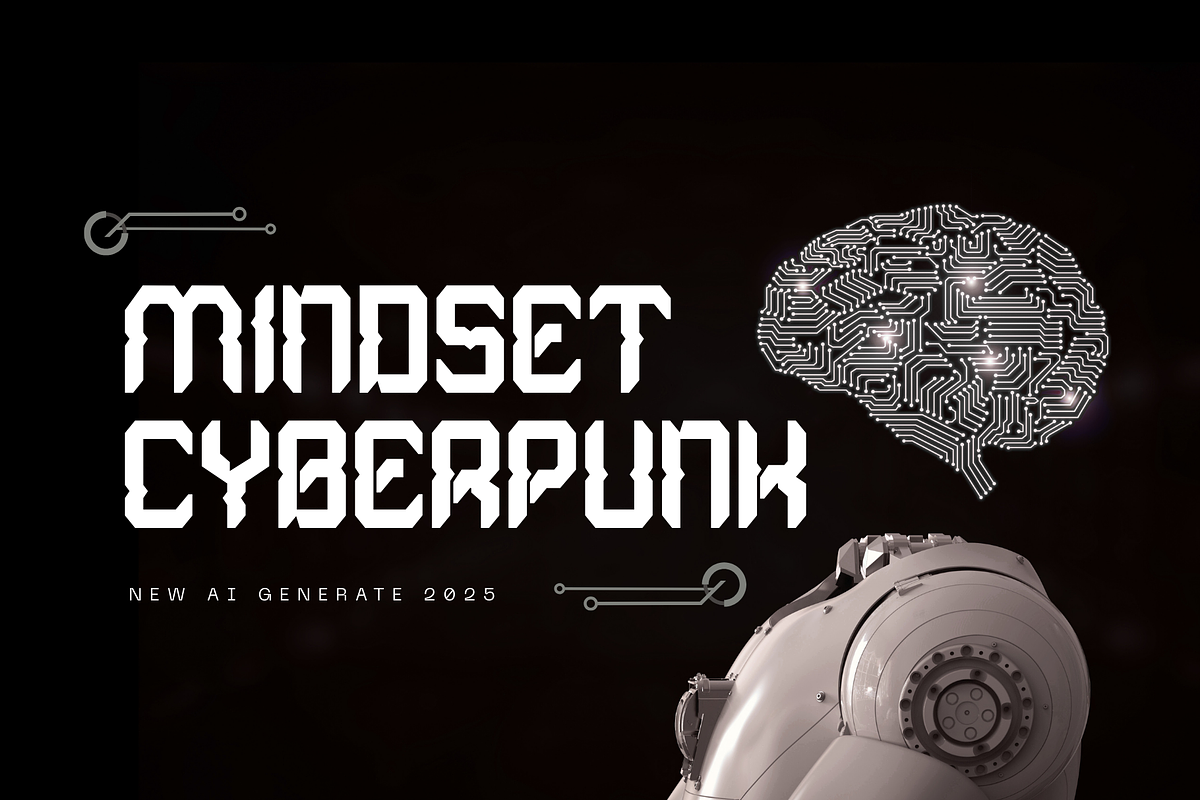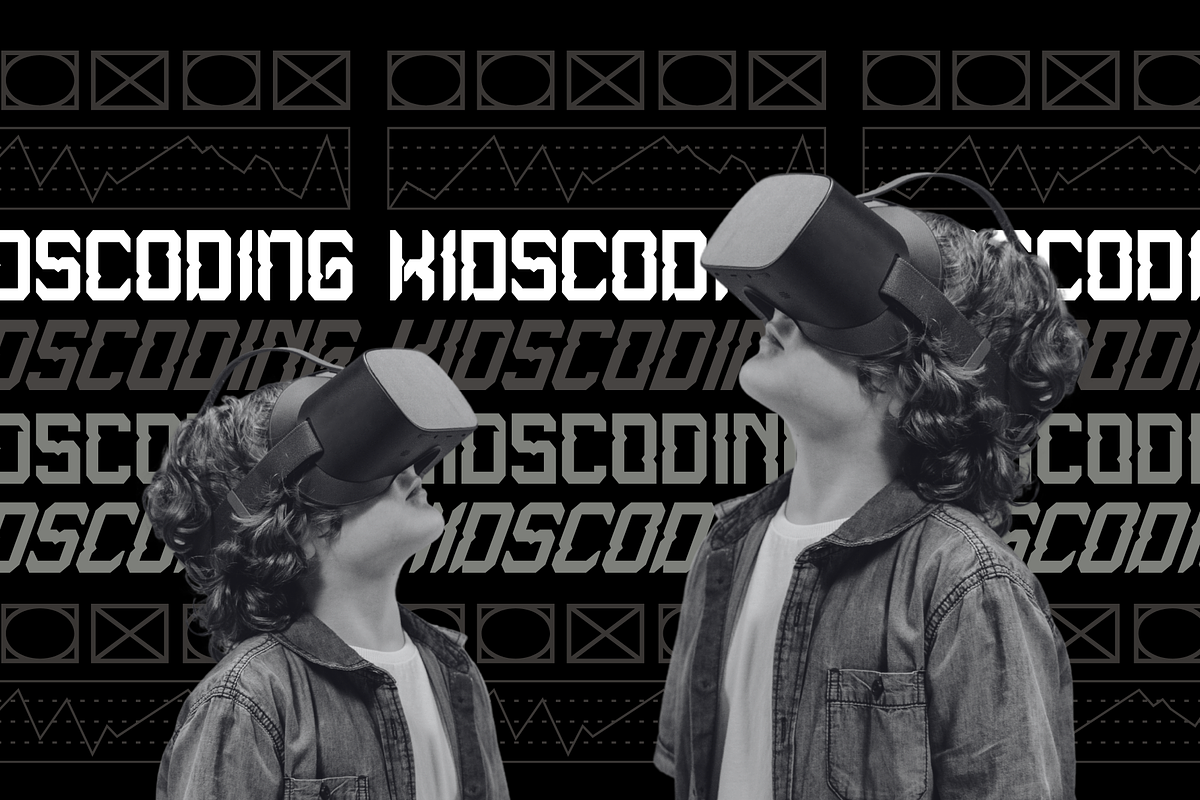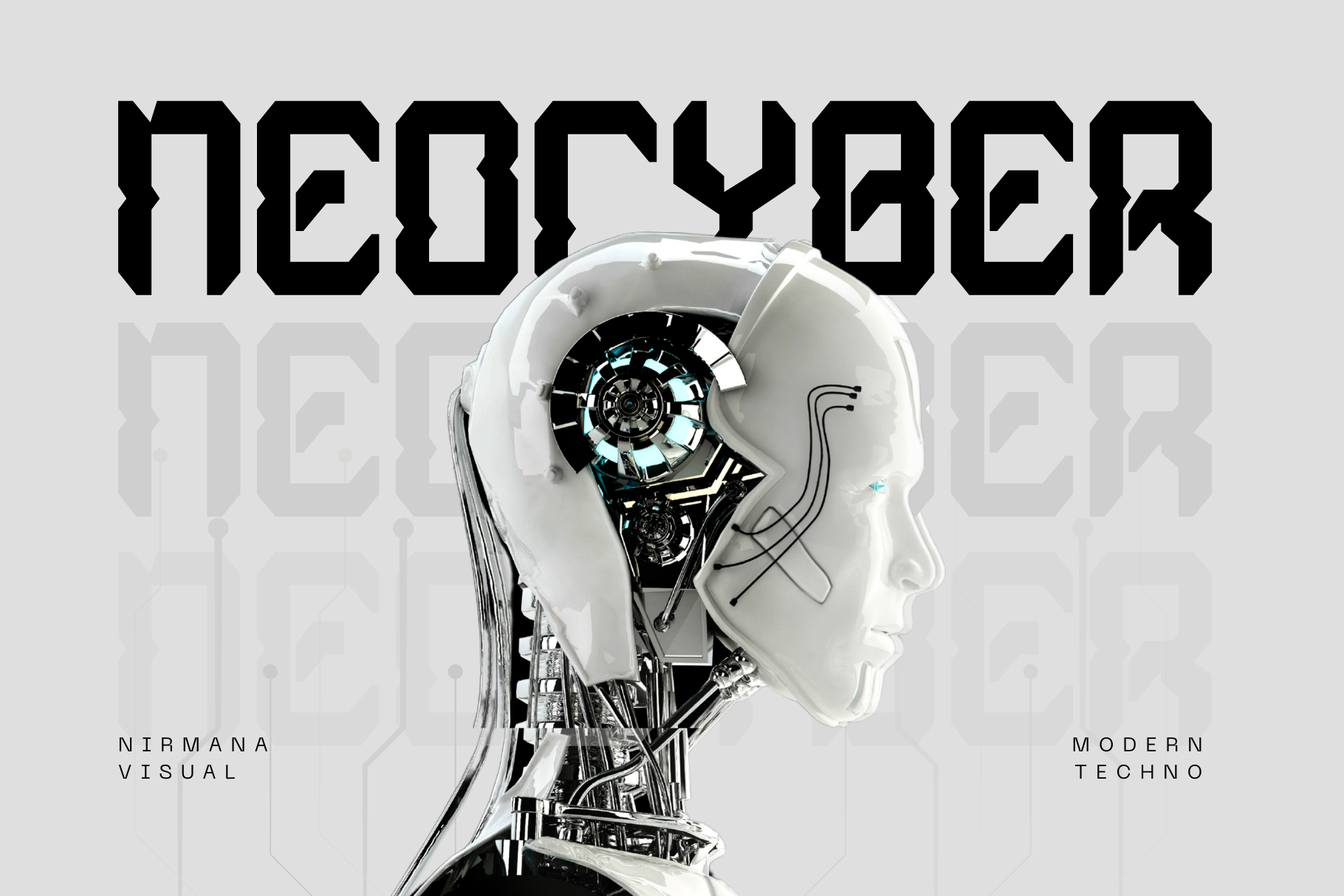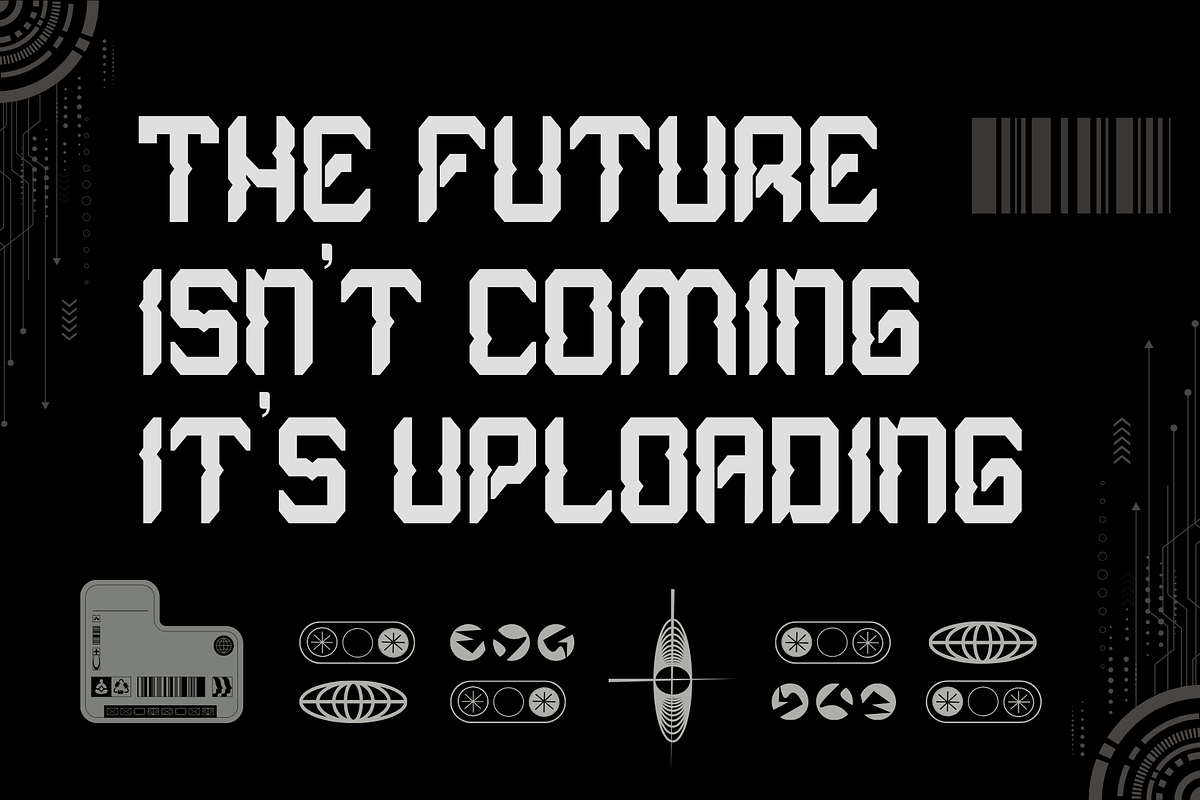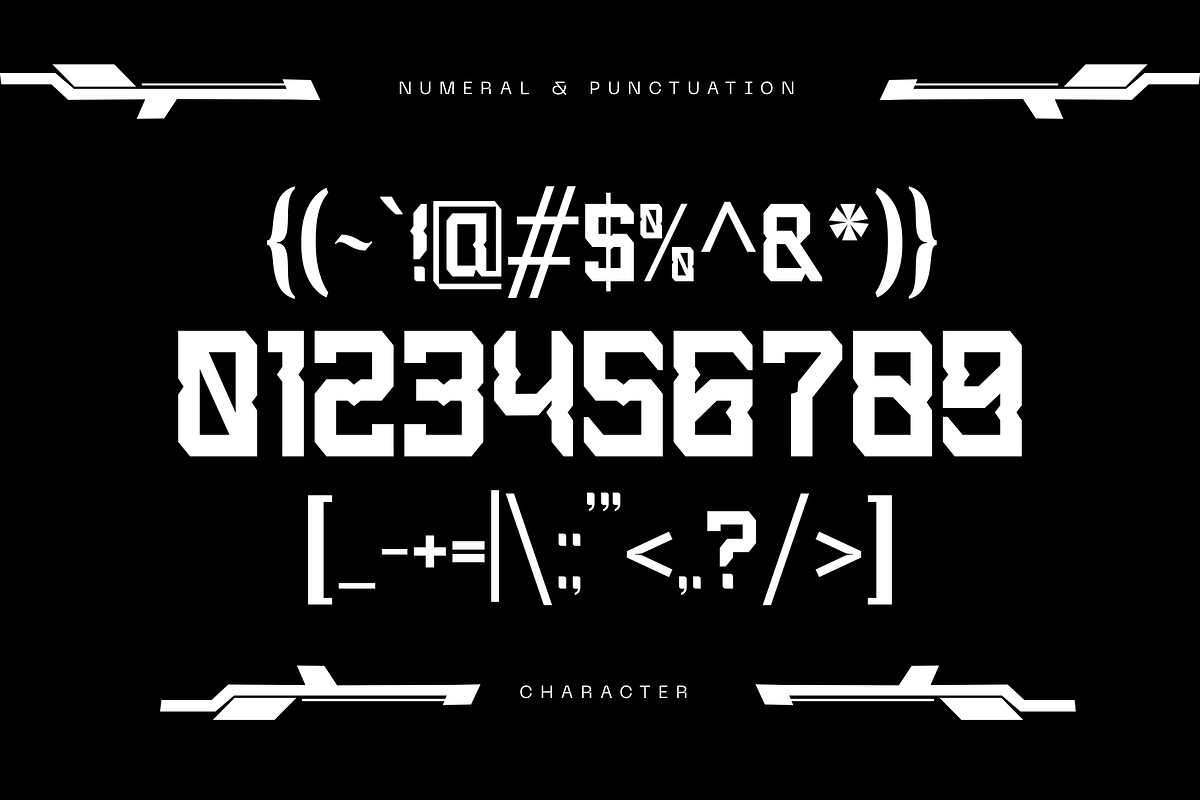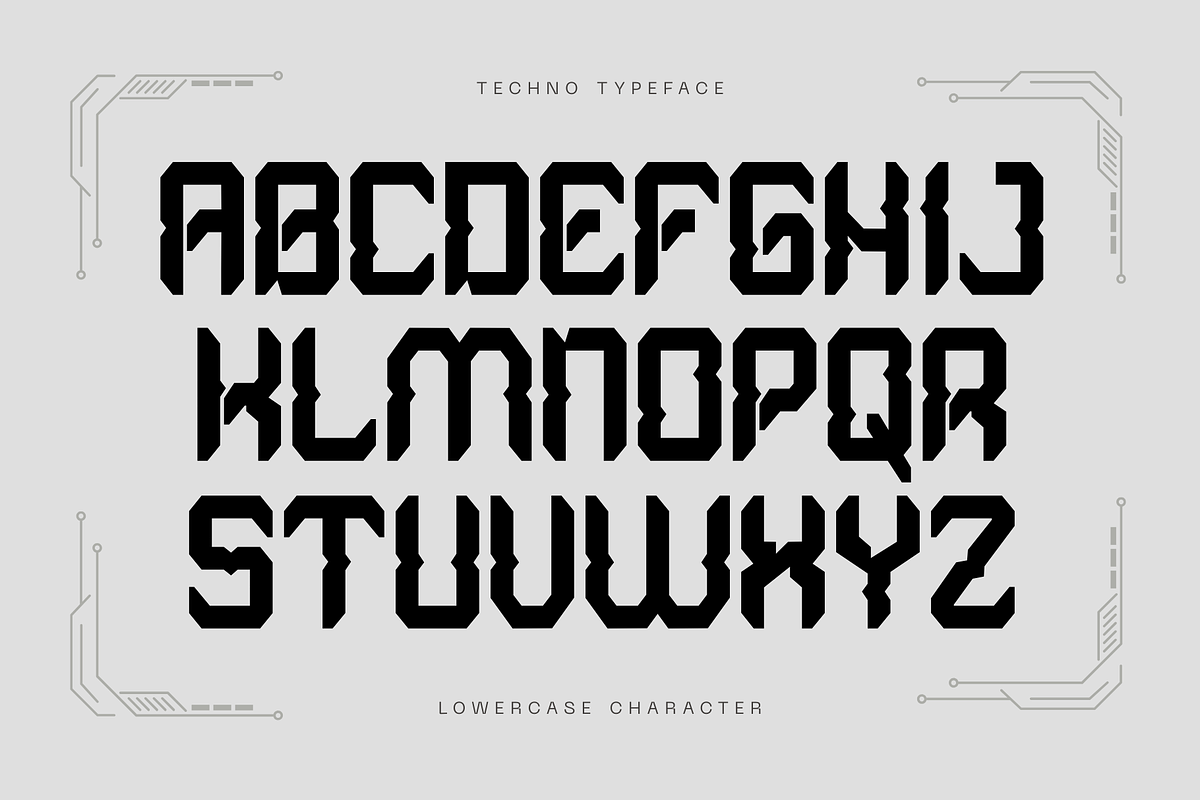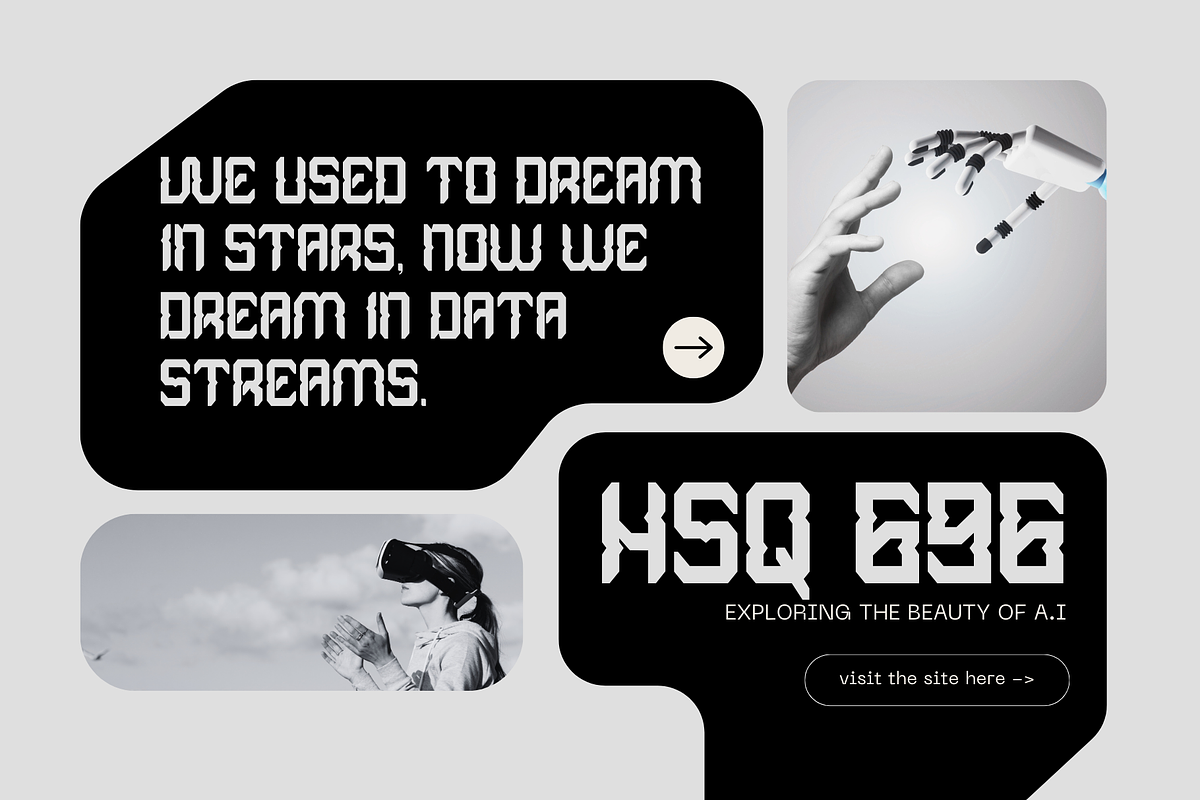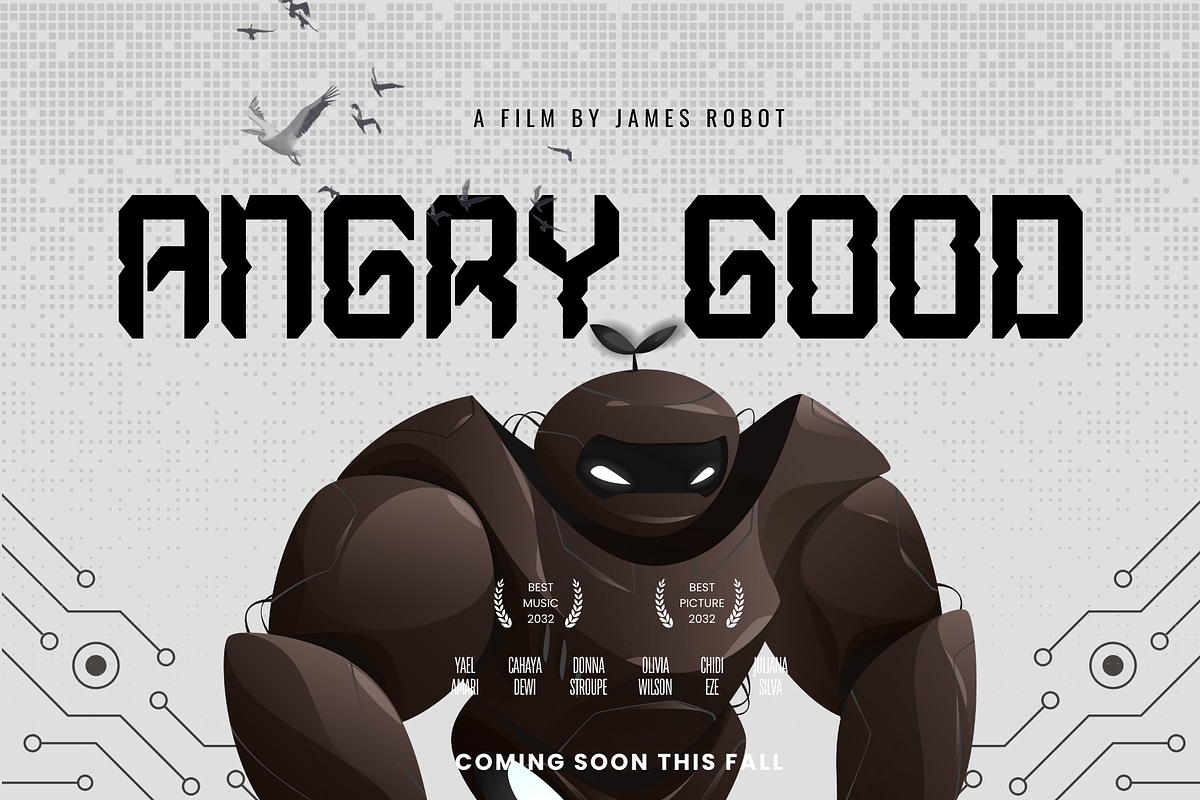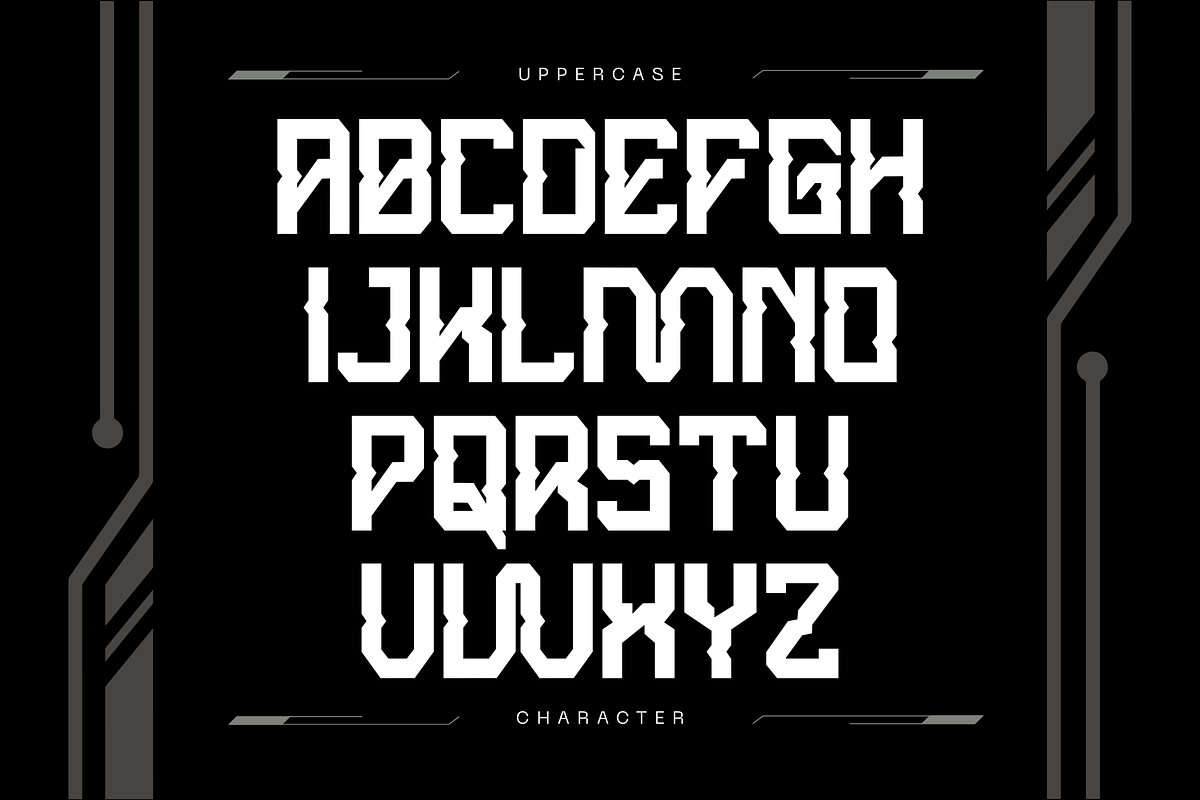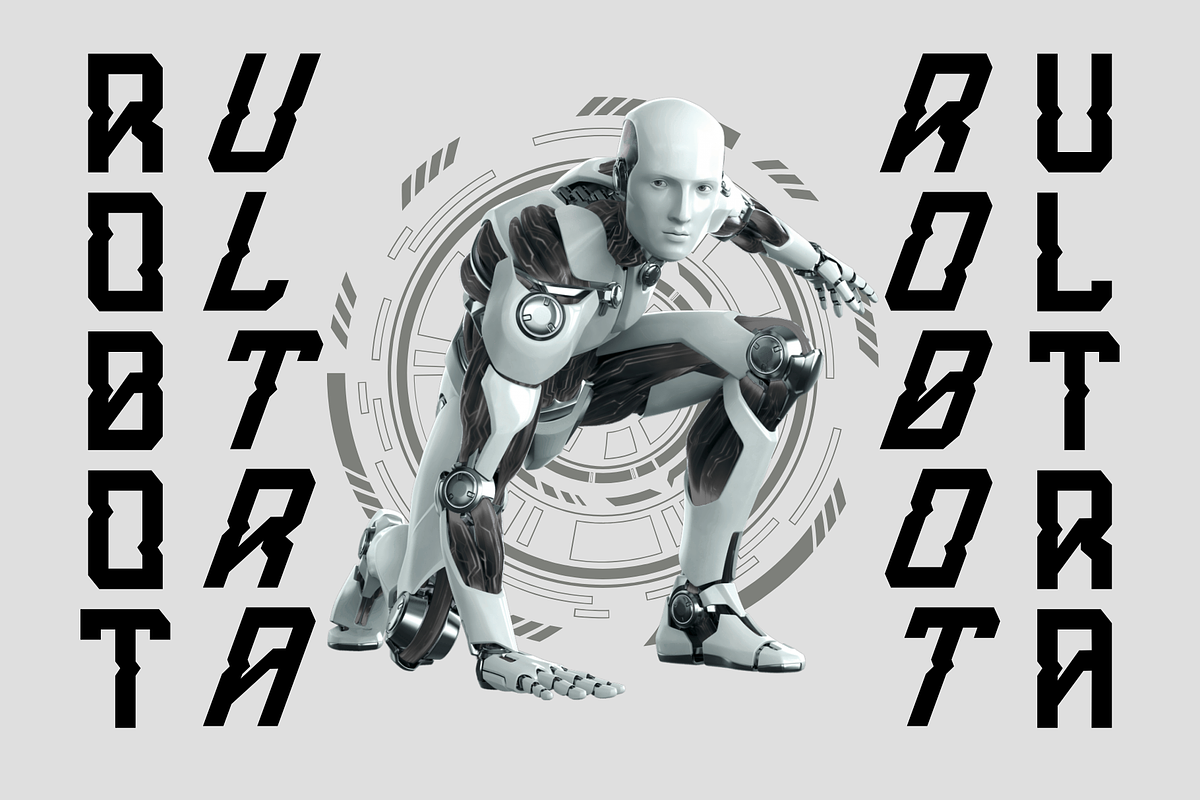
Neo Cyberpunk - Modern Techno Font
Neo Cyberpunk - a modern futuristic display font inspired by high-tech sci-fi aesthetics and the bold energy of cyberpunk culture. Designed for digital interfaces, gaming titles, tech branding, and cinematic visuals, Neo Cyberpunk features sharp angles, geometric cuts, and sleek lines that evoke a sense of speed and innovation. This font brings a bold, electrifying style to your modern design projects, capturing the essence of the future in every letter.